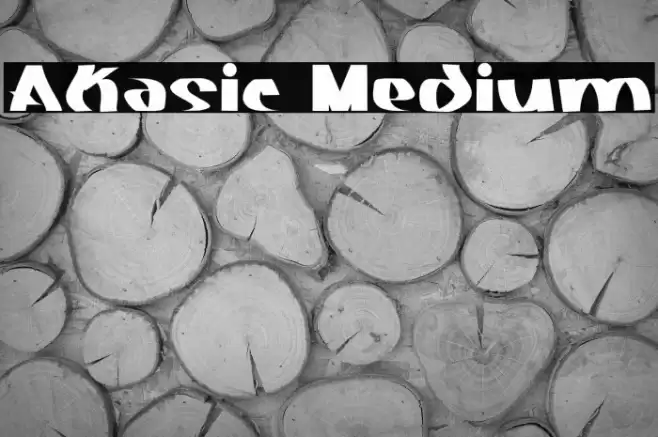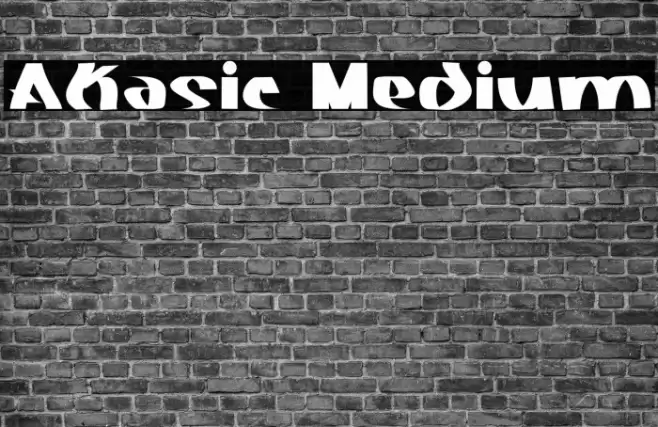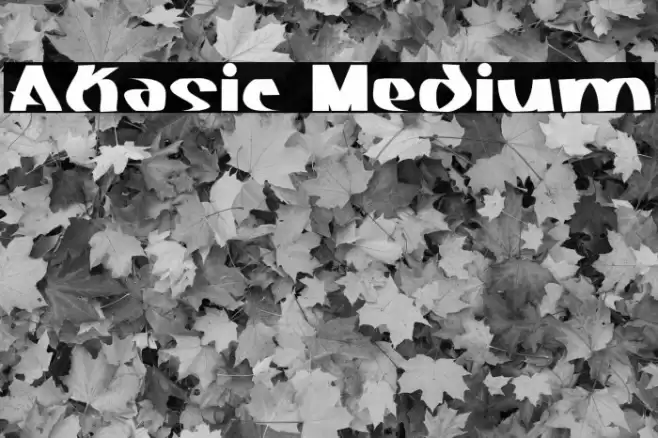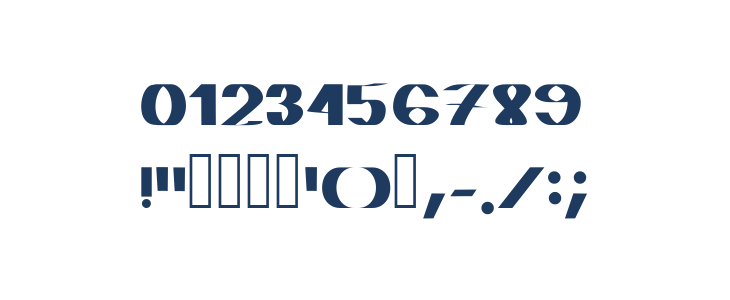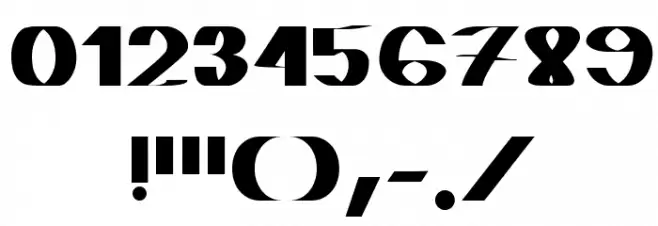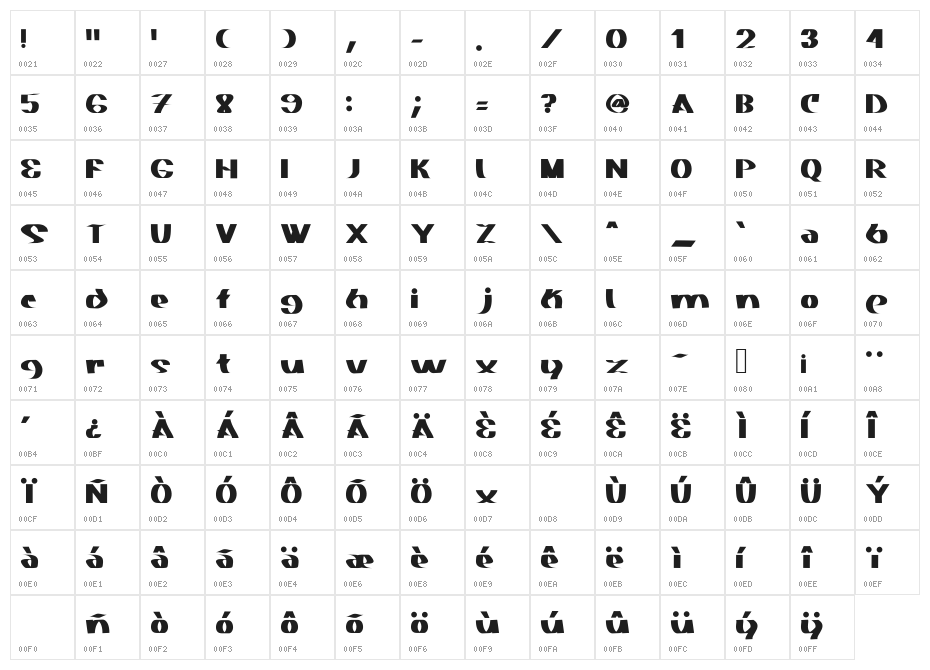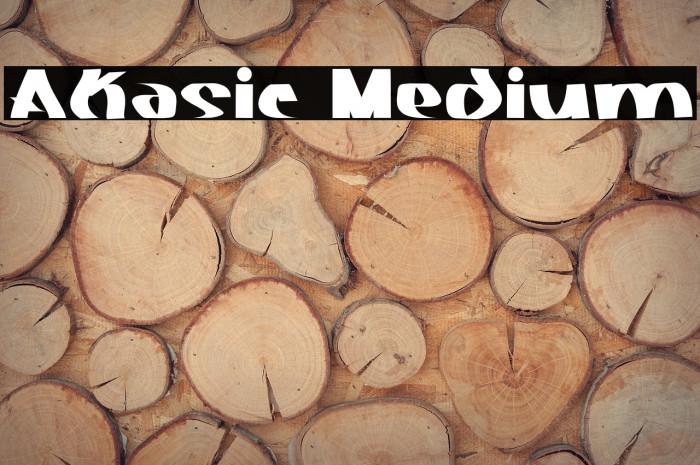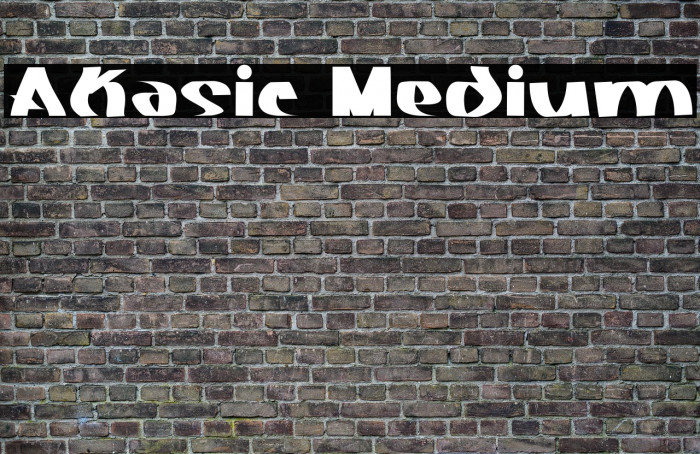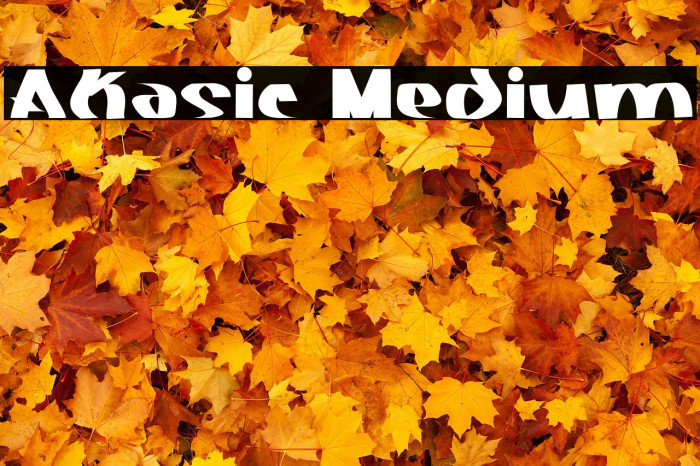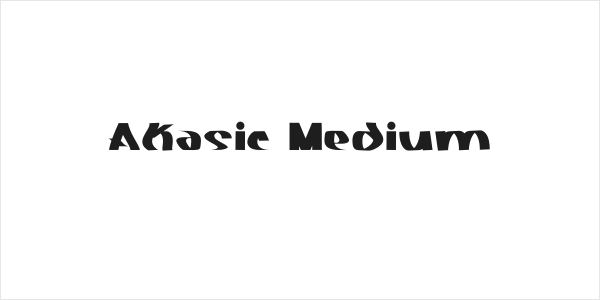
Akasic Medium Font
Akasic Medium Description
This font features a bold and dynamic design with a strong presence. The characters are crafted with sharp, angular edges and unique cutouts that create a sense of movement and energy. The uppercase letters are particularly striking, with a geometric flair that captures attention. The lowercase letters maintain the same boldness, ensuring consistency across text. Numbers and special characters are equally distinctive, making this font versatile for various design needs. The overall style is modern and edgy, suitable for projects that require a standout typeface.
A bold, dynamic font with sharp, angular edges and unique cutouts from Uncategorized fonts.